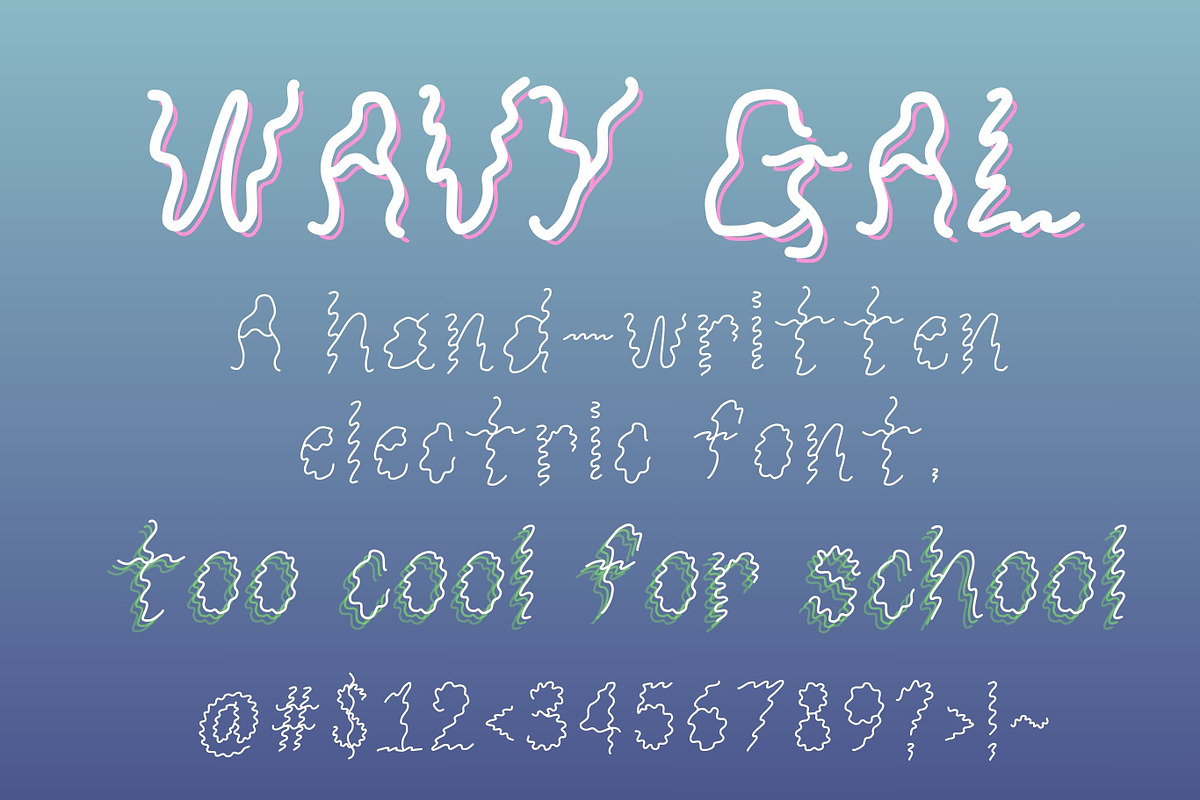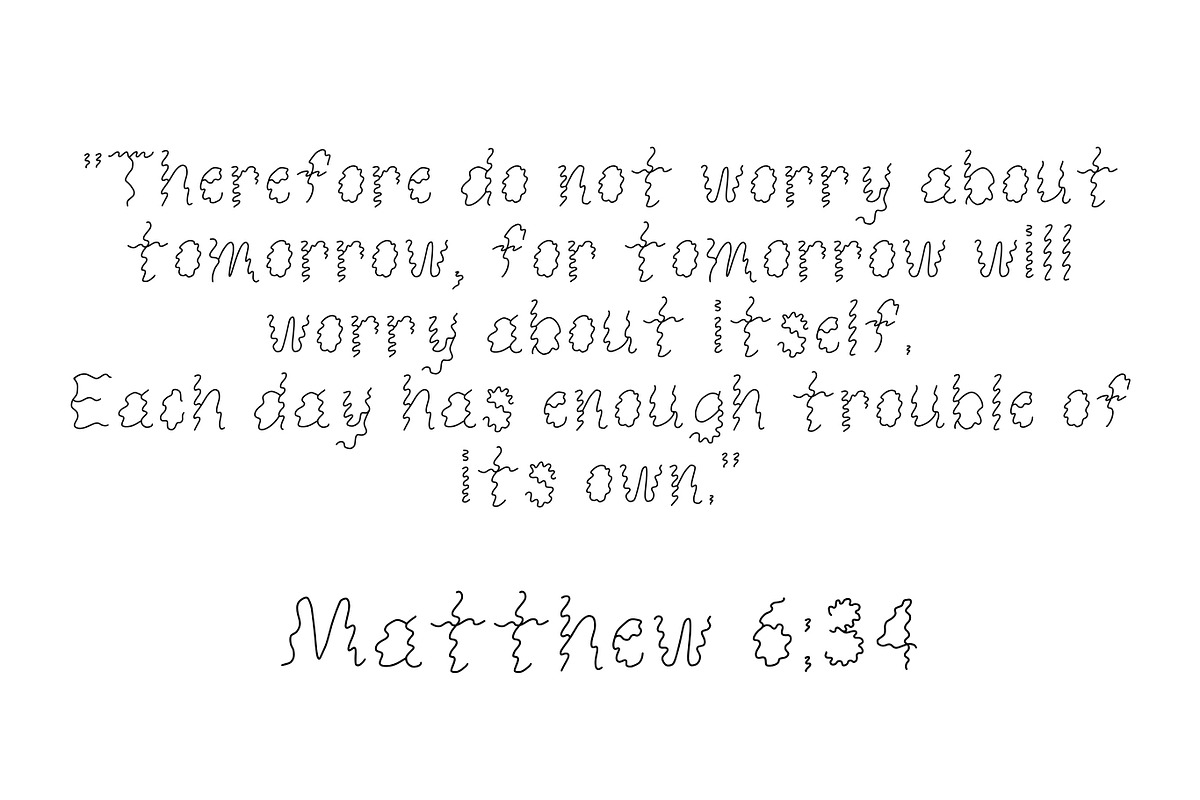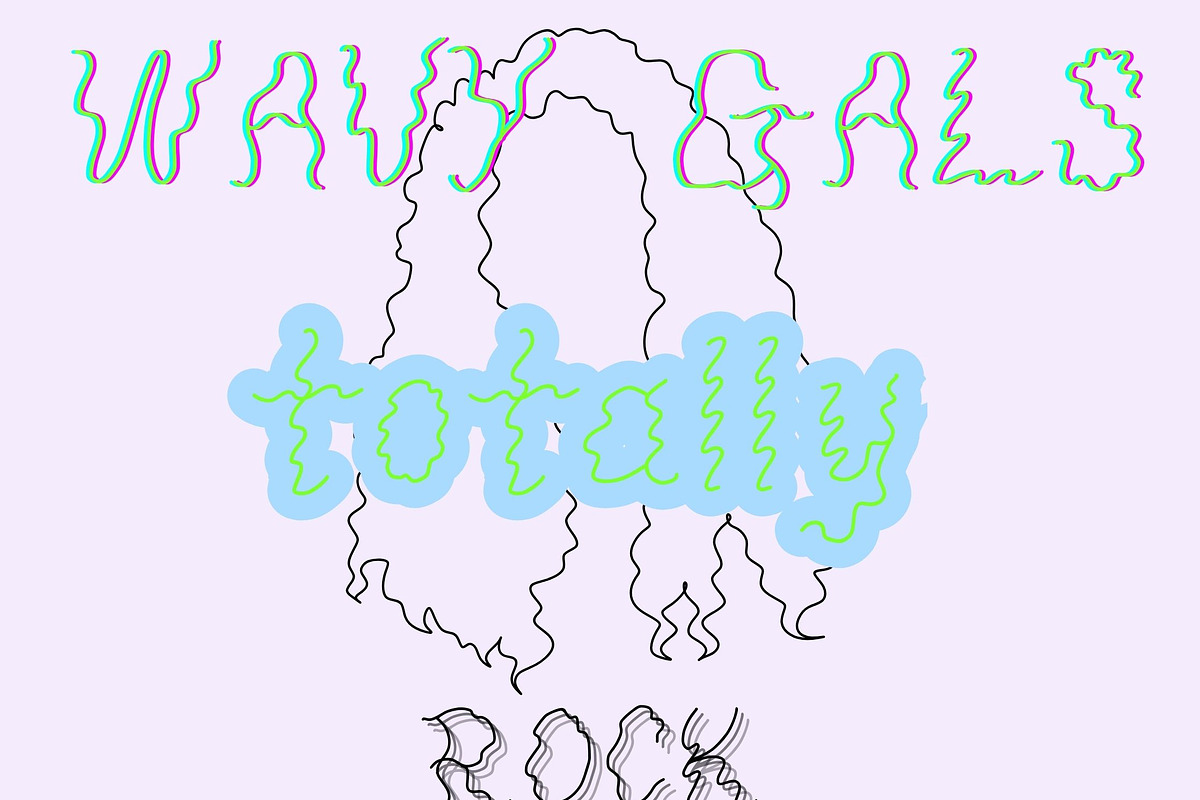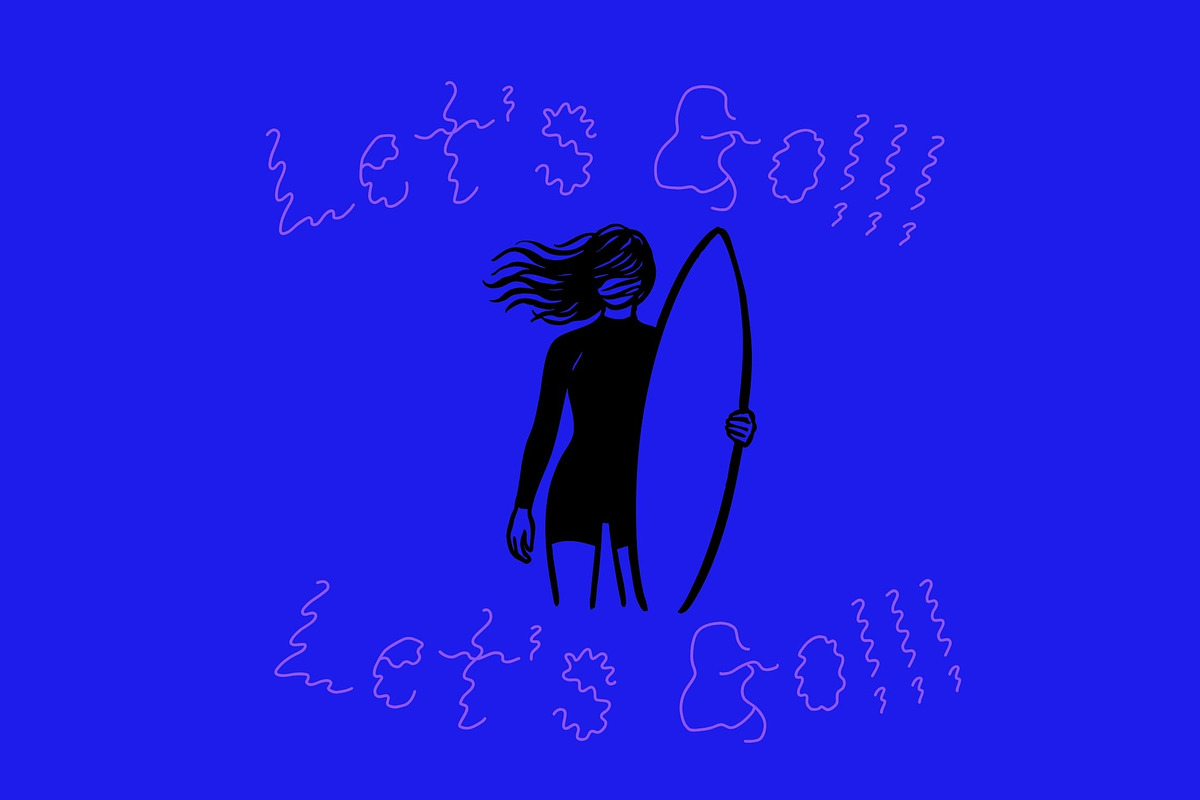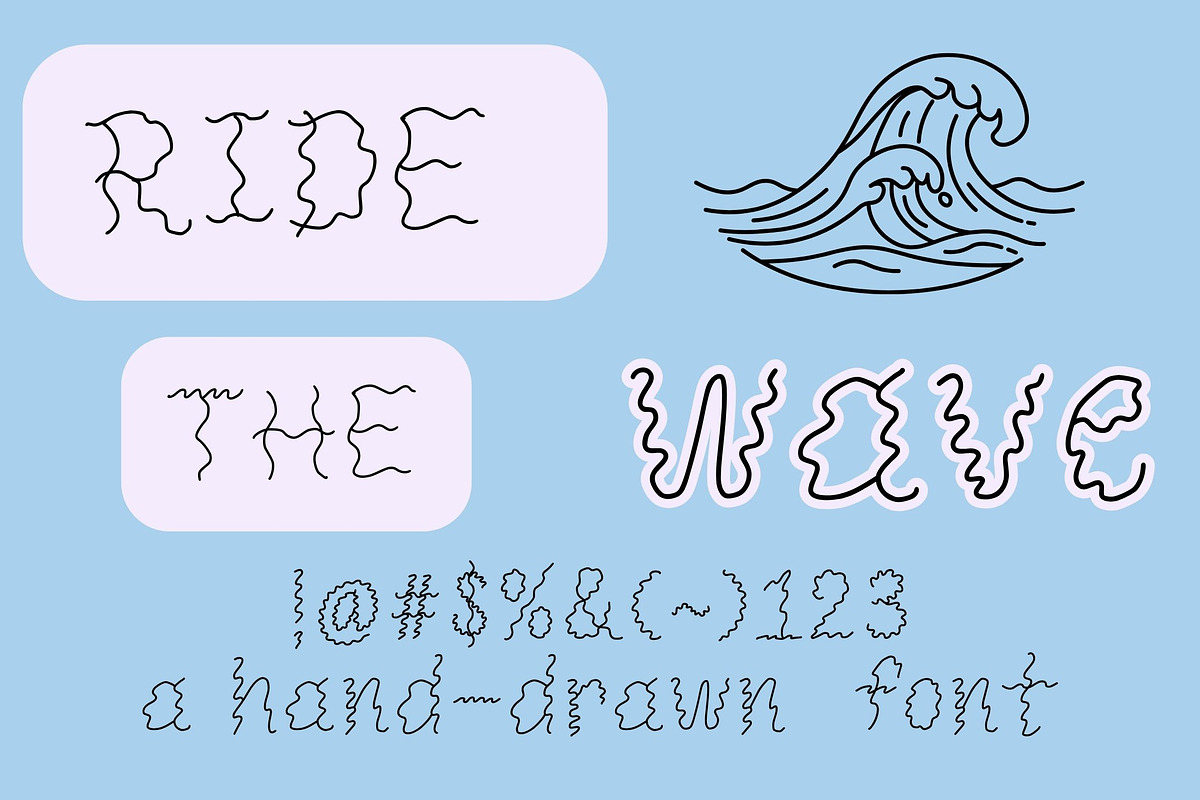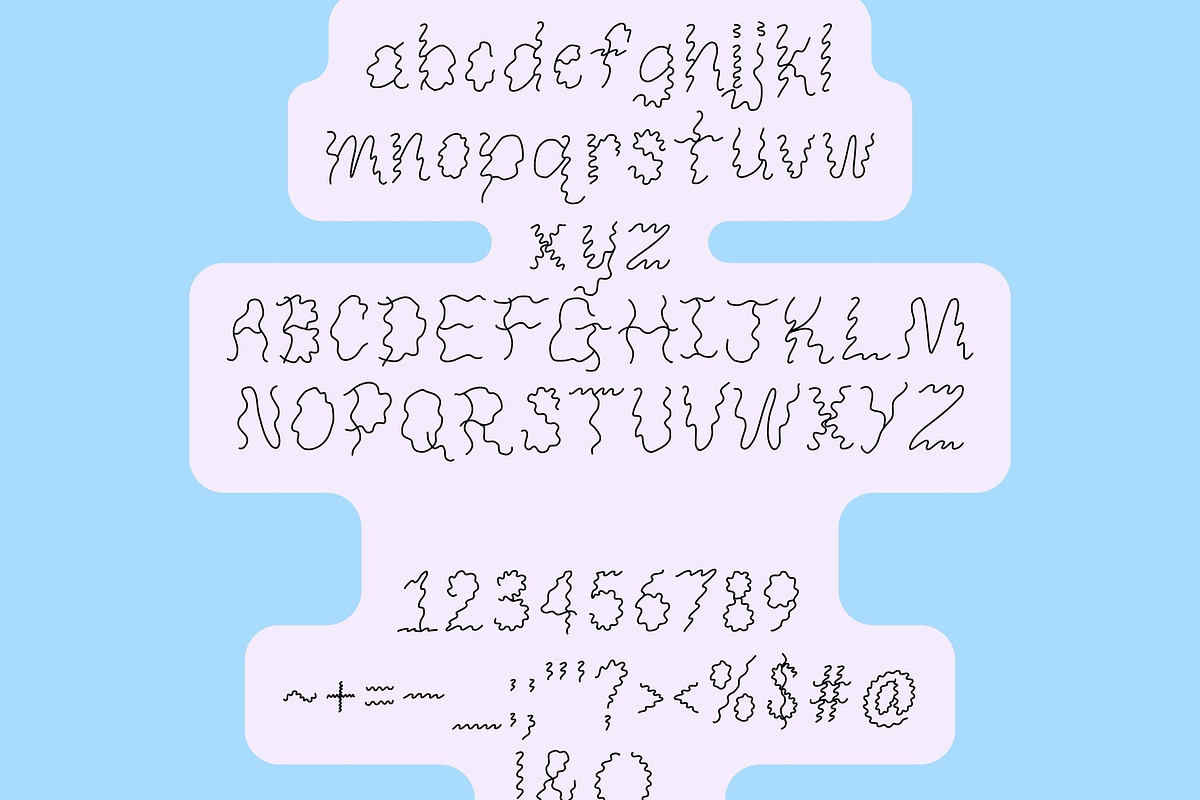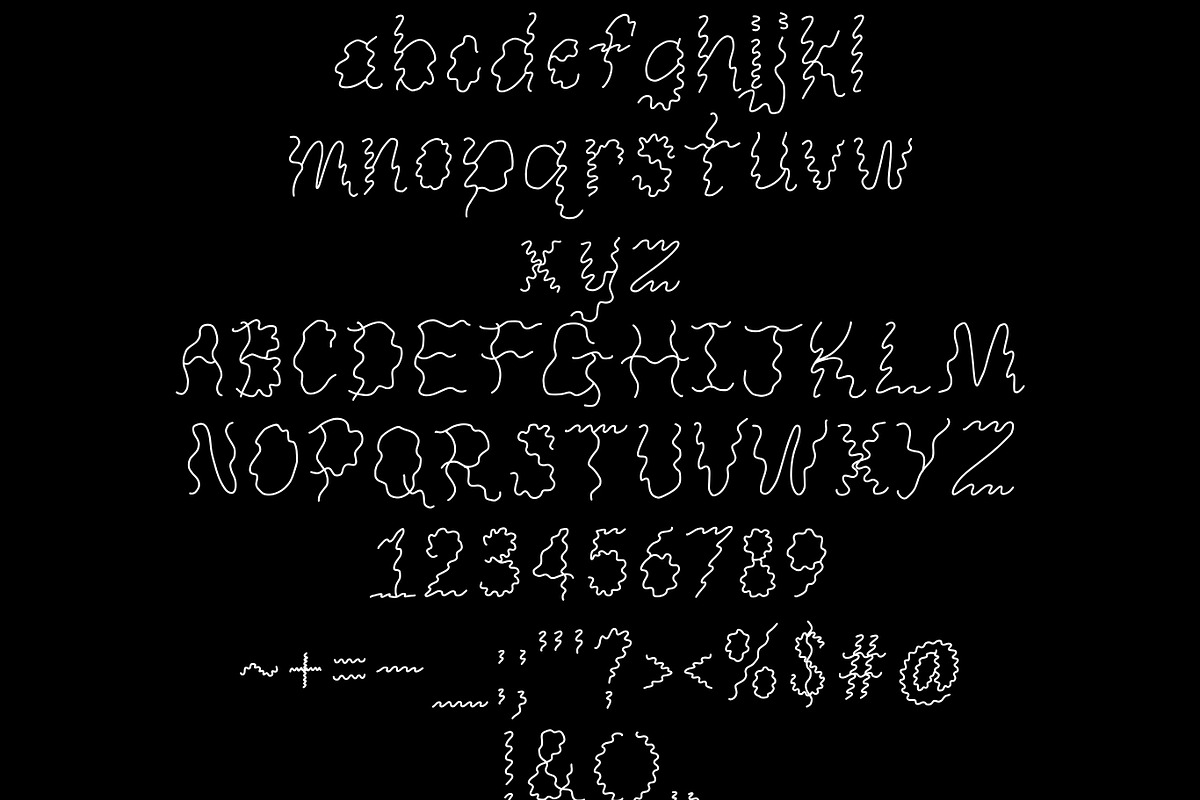
Ride The Wave/Wavy Hand-drawn font
A hand-lettered, one-of-a-kind wavy font. Whether you are looking for a laid-back California surfer vibe, or a groovy girl vibe, this font will surely add flair and personality to any project. Put it on a T-shirt or Product Label, and you will definitely catch some eyes. A great font for those designers who love to have hand-made design assets on hand. Hand-made just brings more soul to your design project. This font just feels good. Enjoy.
full alphabet, symbols, and numbers
hand-drawn wavy font
aesthetic and groovy
fun and sweet